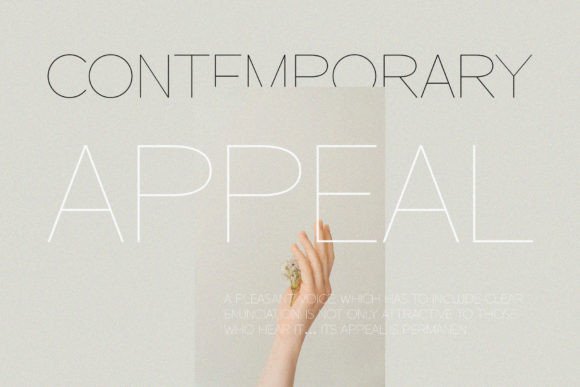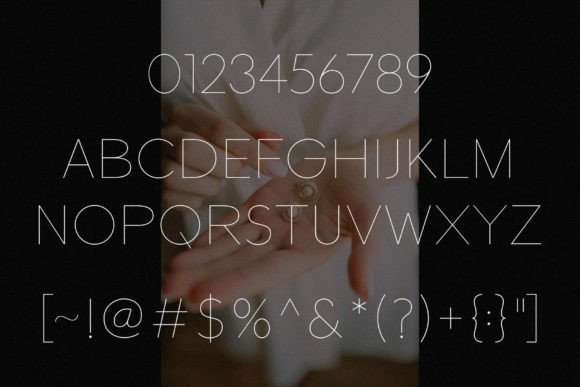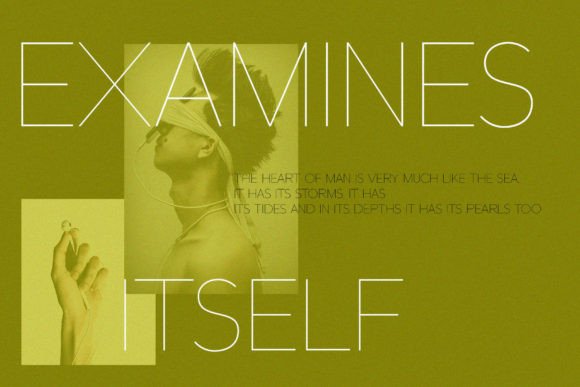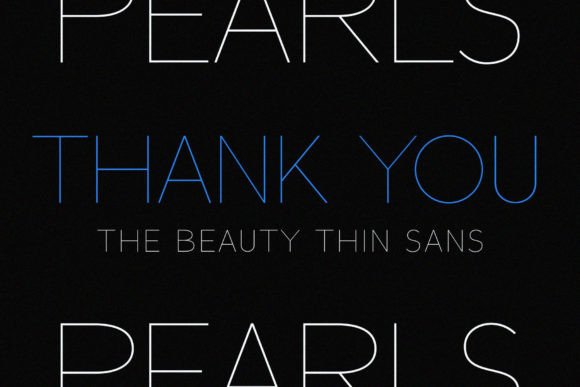
Introduction to Pearls Font
Have you ever stared at a blank canvas, wondering which font will bring your creative project to life? For designers, finding the perfect font can be a daunting task, but what if we told you about a game-changing design resource that’s sure to elevate your work? Introducing Pearls Font, a modern sans serif font that exudes simplicity and sophistication.
With its clean lines and minimalistic design, Pearls Font is perfect for branding and editorial projects. Whether you’re working on a high-quality brochure or a sleek website, this font will help you achieve a polished and professional look while maintaining a sense of approachability. Plus, with a transparent background, you can easily layer your design without worrying about clutter.
What sets Pearls Font apart is its versatility – it’s a valuable addition to any designer’s toolkit, and the best part? It’s available for free download, making it an accessible design resource for creatives of all levels.
Pearls Font
- Available in a range of sizes, including small caps, uppercase, and lowercase letters
- Resolution-independent, ensuring crisp and clear text at any size
- Unique, elegant design makes it perfect for branding, logos, and typography-based projects
Honest Review: Pearls Font
As a designer, I’m always on the lookout for high-quality fonts to elevate my creative projects. The Pearls Font is a beautiful addition to my design resource library, offering a unique and elegant style that’s perfect for a variety of applications.
- ✨ Unique and intricate design that adds visual interest to any project
- ✨ Transparent background, making it easy to use with any design element
- ⚠️ Limited character set, which may not be suitable for longer texts
- ⚠️ Some characters may not display correctly in certain fonts or sizes
Overall, I’m impressed with the Pearls Font and would highly recommend it to designers looking for a unique and elegant font to add to their design resource library. While it has some limitations, the benefits far outweigh the drawbacks, making it a valuable addition to any creative project.
Pearls Font
Tips for Getting the Most Out of Pearls Font
Experiment with different font sizes, colors, and styles to achieve the desired effect. Use the transparent background feature to create unique and creative designs. Combine Pearls Font with other design resources to create a cohesive and high-quality design.
Pearls Font is ideal for creative projects such as wedding invitations, party decorations, and branding materials. Its high-quality features and transparent background make it a valuable design resource for designers and non-designers alike.